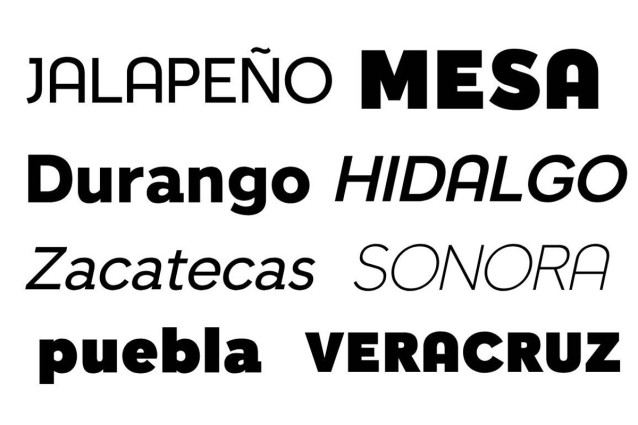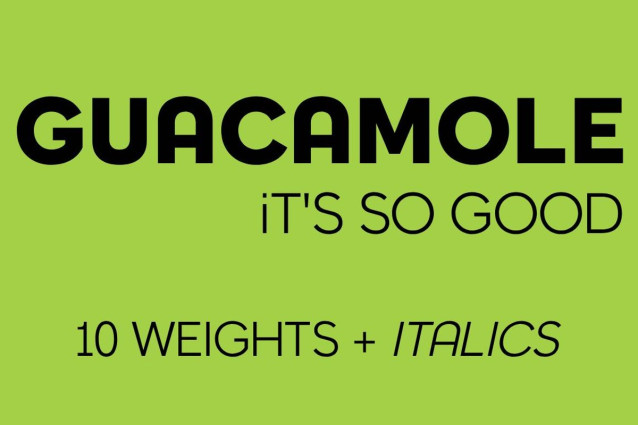
Guacamole Font Family
Guacamole Font Family: Inspired by an old postcard of the 101 CAFE in Santa Barbara, California. With its geometric design, including the rounded A at the top, this font is great for country-themed projects.
However, it would also work well for a menu or logo for a fine dining restaurant.